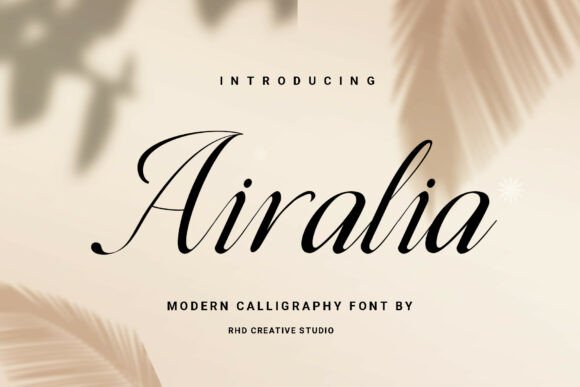
Airalia Font: A Delicate and Elegant Handwritten Masterpiece
In the world of typography, few fonts manage to capture the essence of elegance and delicacy as effortlessly as Airalia. This beautiful handwritten font has been making waves in the design community, and for good reason. Its distinct and well-balanced letters make it a masterpiece that can elevate any design project. In this article, we’ll take a closer look at what makes Airalia so special and how you can use it to create spectacular designs.
What is Airalia Font?
Airalia is a delicate and elegant handwritten font that exudes sophistication and refinement. Its unique and well-crafted letters make it stand out from other fonts, giving it a distinct character that is both versatile and eye-catching. Whether you’re working on a branding project, a wedding invitation, or a digital product, Airalia is sure to make a lasting impression.
Key Features of Airalia Font
- Delicate and Elegant: Airalia’s letters are carefully crafted to convey a sense of elegance and refinement, making it perfect for designs that require a touch of sophistication.
- Well-Balanced Letters: The font’s letters are meticulously balanced to ensure that each character is harmonious and visually appealing.
- Incredibly Versatile: Airalia’s style is versatile enough to be used in a wide range of design projects, from logos and branding to invitations and digital products.
- Handwritten with Love: Airalia’s handwritten nature gives it a personal touch that is hard to replicate with generic fonts.
10 Creative Ways to Use Airalia Font
Airalia’s versatility makes it suitable for a wide range of design projects. Here are some creative ways to use this beautiful font:
- Wedding Invitations: Airalia’s elegant style makes it perfect for wedding invitations, save-the-date cards, and other wedding-related designs.
- Branding and Logos: Create a lasting impression with Airalia’s unique and memorable font, ideal for logos, business cards, and brand identities.
- Digital Products: Use Airalia to create visually appealing digital products, such as e-books, workbooks, and planners.
- Social Media Graphics: Elevate your social media presence with Airalia’s stylish font, perfect for graphics, quotes, and promotional materials.
- Packaging Design: Add a touch of elegance to your product packaging with Airalia’s beautiful font.
- Advertising: Create eye-catching ads with Airalia’s unique font, perfect for print and digital advertising.
- Signage: Use Airalia to create stunning signage, from storefront signs to directional signs.
- Menu Design: Give your restaurant or cafe a touch of sophistication with Airalia’s elegant font, perfect for menus and food packaging.
- Event Branding: Create a cohesive brand identity for your events with Airalia’s stylish font, ideal for conferences, festivals, and more.
- Personal Stationery: Add a touch of elegance to your personal stationery, such as notecards, journals, and letters.
Typography Tips for Using Airalia Font
To get the most out of Airalia, here are some typography tips to keep in mind:
- Pair with Neutral Colors: Airalia’s delicate style works best with neutral colors, such as black, white, and pastels.
- Experiment with Ligatures: Airalia’s ligatures can add an extra touch of elegance to your designs, so don’t be afraid to experiment.
- Use Contrast: Use contrasting font sizes, colors, and styles to create visual interest and hierarchy in your designs.
- Keep it Simple: Airalia’s beauty lies in its simplicity, so avoid over-accessorizing your designs with too many fonts or graphics.
In conclusion, Airalia font is a delicate and elegant handwritten masterpiece that can elevate any design project. Its distinct and well-balanced letters make it a versatile font that can be used in a wide range of applications. With its incredibly versatile style, Airalia is sure to become a favorite among designers and non-designers alike. So why wait? Download Airalia today and start creating spectacular designs that will leave a lasting impression!